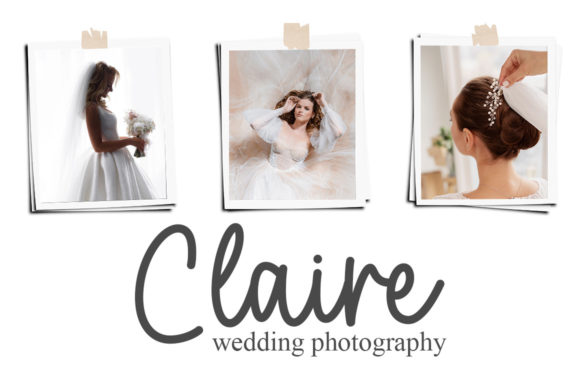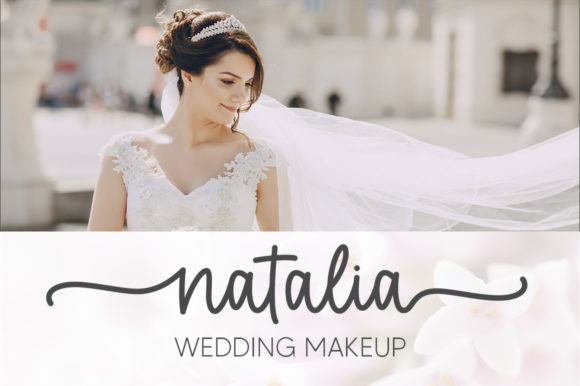
About Katrina Font
Katrina is an elegant handwritten font. Dainty and joyful, this font will be ideal for writing wedding invitations, cards or any other design that may need a romantic, personalized touch! Katrina is PUA encoded which means you can access all of the glyphs and swashes with ease!